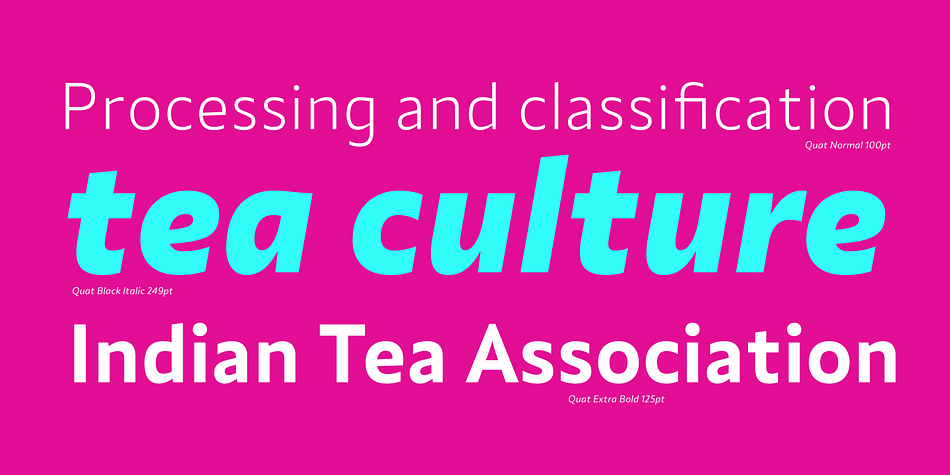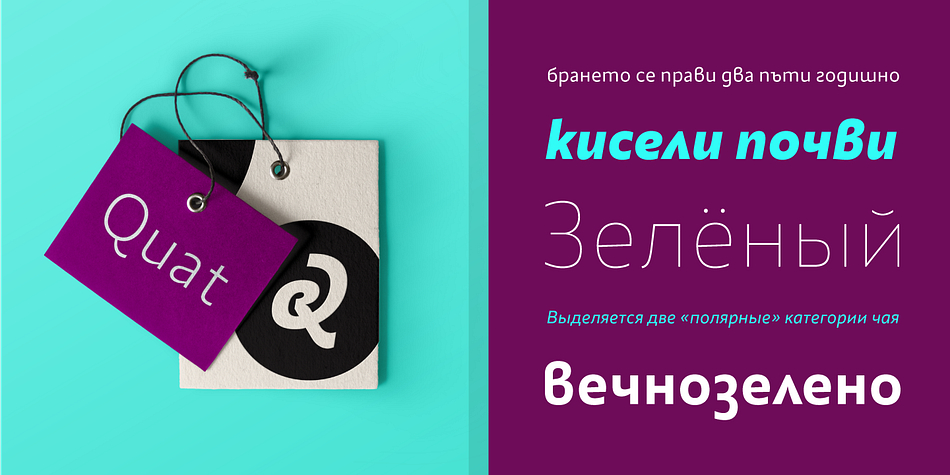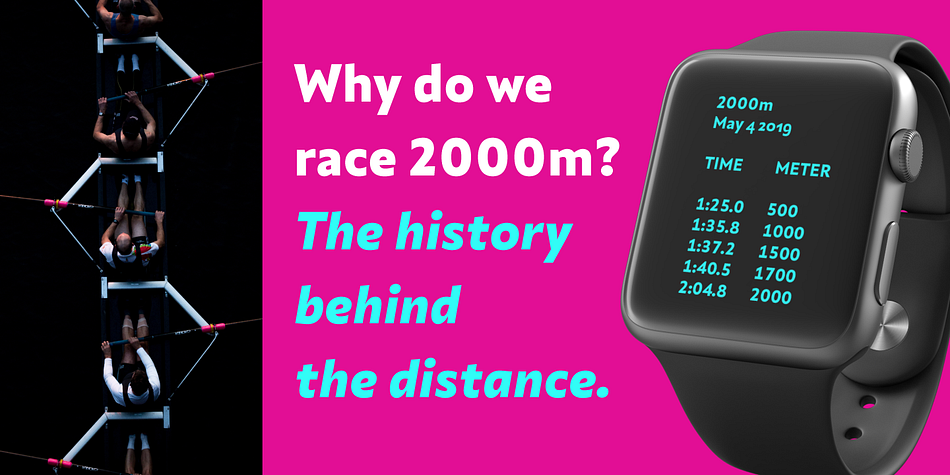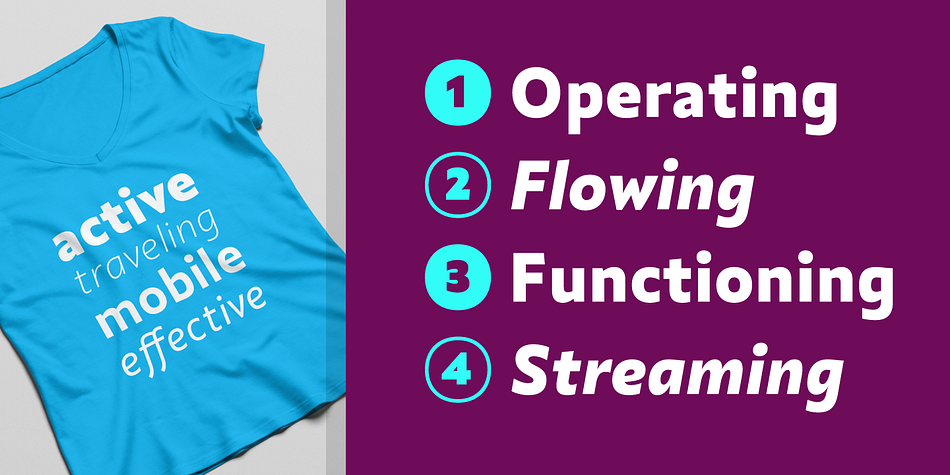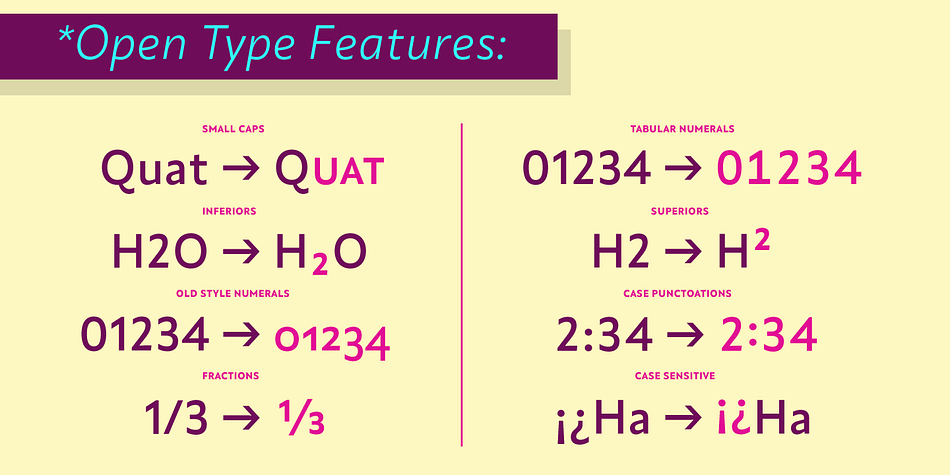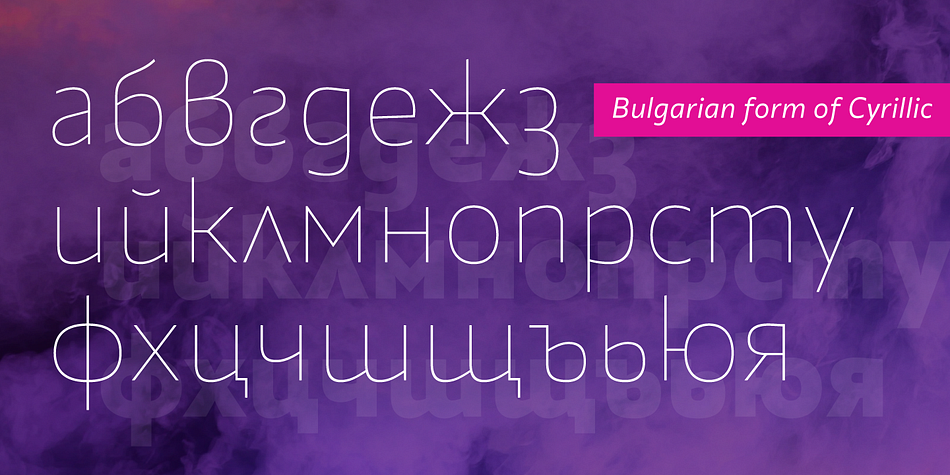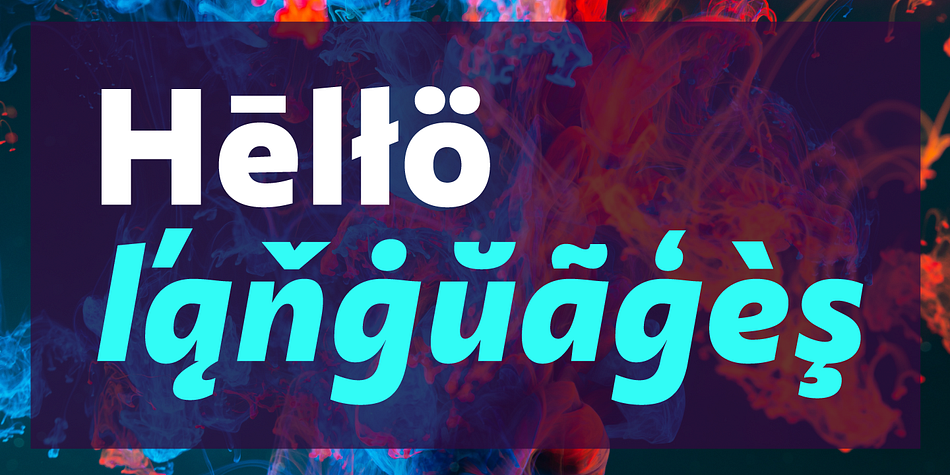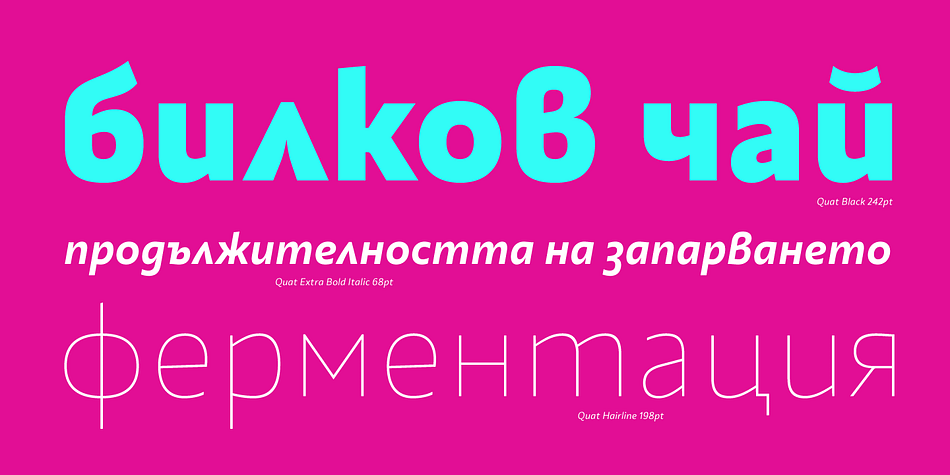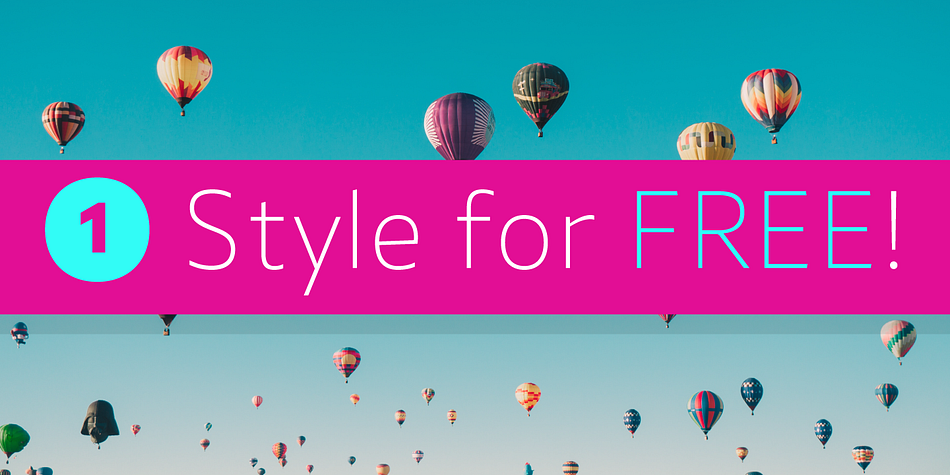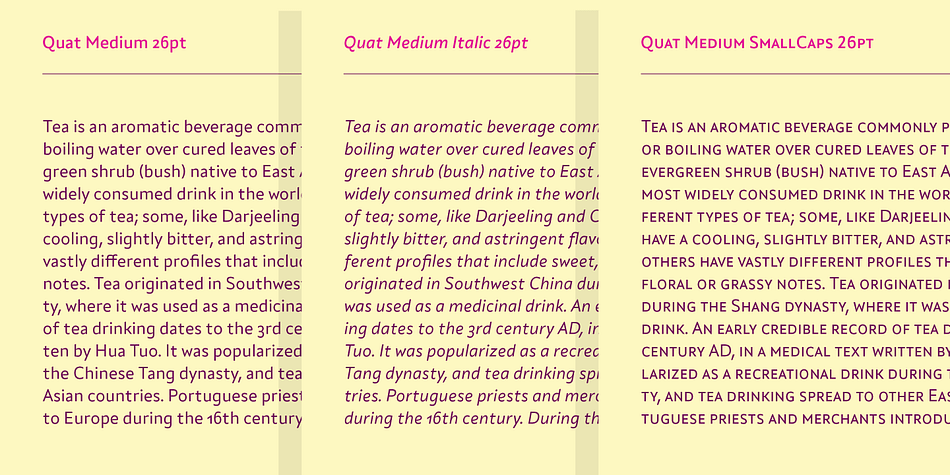
Designed by Ani Dimitrova, Quat is a sans serif font family. This typeface has twenty-two styles and was published by Ani Dimitrova.
Quat is a sans serif type family designed by Ani Dimitrova. The family comes in 22 weights, ranging from Haiirline to Black with extra drawn italics and small caps versions, and each style contains more than 700 glyphs. The Regular and Medium weights are perfect for body text while the extra drawn Italic gives an interesting texture to the text. The lightest weights work well in subtle headlines while the heaviest ones are perfect for posters, short texts, web, branding and screen design. All weights contain ligatures, proportional figures, tabular figures, old style figure, numerals and arrows, matching currency symbols and fraction. The range of styles give a good flexibility to this family.